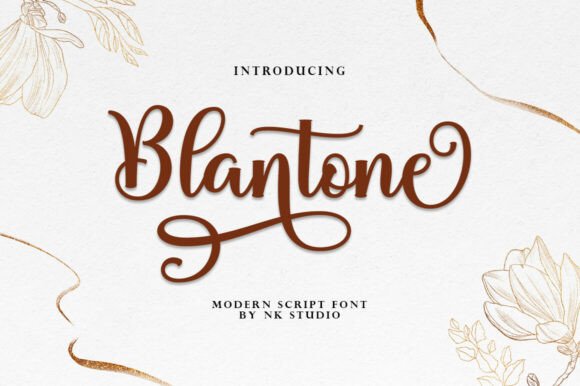
The Sweet Charm of Blantone Font: A Designer’s Delight
I still remember the time I was working on a wedding invitation project, and my client asked for a font that was both elegant and playful. I scoured the internet, tried out countless fonts, but nothing seemed to fit the bill. That was until I stumbled upon Blantone Font. Its soft, calligraphic strokes and dancing characters along the baseline instantly won me over. It was love at first sight! 💕
An Honest Review of Blantone Font
What I Love About Blantone Font
- ✨ Soft and sweet calligraphic style that’s perfect for elegant designs
- ✅ Casual and elegant touch that’s suitable for various projects
- 💃 Beautifully crafted characters that dance along the baseline, adding a touch of whimsy to your designs
- 📚 Highly versatile and can be used for logos, wedding invitations, headings, t-shirts, letterheads, signage, labels, news, posters, badges, and more!
While Blantone Font is an amazing typeface, it’s not without its quirks. Here are a few things to keep in mind:
- 🤔 Limited use in very formal or corporate designs, as it may come across as too playful
- ⚠️ May not be suitable for very small font sizes, as some details may get lost
The Backstory of Blantone Font
Blantone Font was designed by a talented type designer who wanted to create a font that was both elegant and playful. Inspired by traditional calligraphy, the designer crafted each character with love and care, resulting in a font that’s both beautiful and functional.
Q: What is Blantone Font?
A: Blantone Font is a soft and sweet calligraphic typeface, with characters that dance along the baseline. It has a casual and elegant touch, making it perfect for various design projects.
Q: Is Blantone Font suitable for body text?
A: While Blantone Font is beautiful, it’s best suited for headlines, titles, and short paragraphs. For body text, you may want to choose a font that’s clearer and more legible.